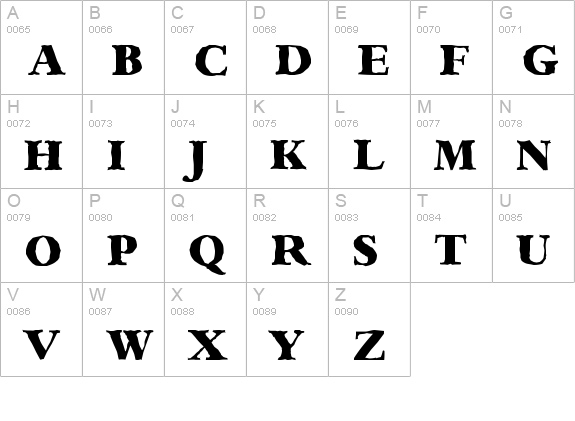
BernsteinAntique-Heavy-Regular Font Details
BernsteinAntique-Heavy-Regular is a heavy, high-impact variant in the BernsteinAntique typeface family \xE2\x80\x94 well suited to high-impact headlines, posters, and display advertising.
BernsteinAntique-Heavy-Regular font is a timeless and elegant typeface that exudes a sense of sophistication and charm. With its classic serifs and bold, heavy weight, this font is perfect for creating impactful headlines, titles, and signage. The careful attention to detail in the design gives it a refined and polished look that is sure to make any project stand out. Best of all, BernsteinAntique-Heavy-Regular font is available for free download at FontsMarket.com. This means you can easily access this high-quality font and use it in your designs without any cost. Whether you're working on a professional project or a personal creative endeavor, this font is a versatile choice that will elevate your work to the next level. Download BernsteinAntique-Heavy-Regular font today and add a touch of sophistication to your designs.